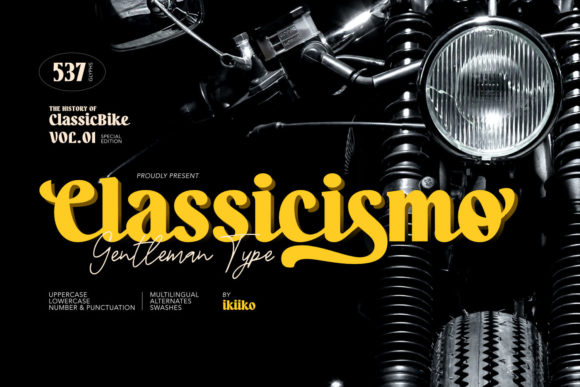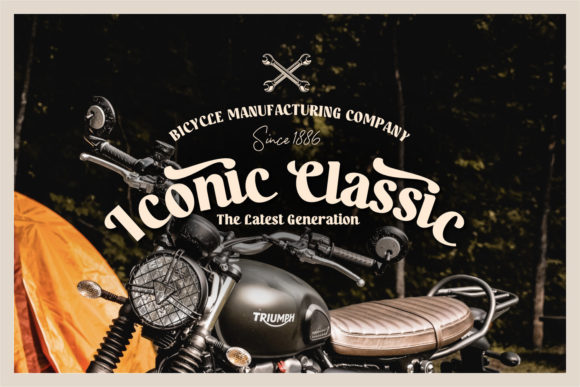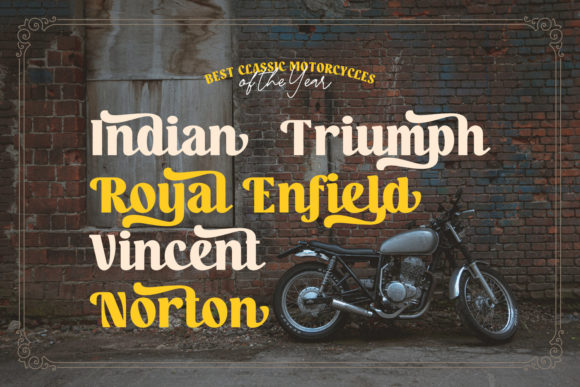
Classicismo: A Gentleman Type Slab Serif Font
Classicismo is a gentleman type slab serif font inspired by the typography of classic motorcycle brands. The letters are bold slab serif characters with classic swashes, offering a firm and sturdy yet flexible appearance. This font is perfect for vintage vehicle logos, motorcycle enthusiasts, manly products, magazine covers, posters, and flyer designs for automotive events. It is also ideal for vintage products or as a stylish text overlay on any background image. Additionally, Classicismo is PUA encoded, allowing easy access to all glyphs and swashes.
Key Features of Classicismo
- Bold Design: Offers a strong and confident look suitable for impactful headlines.
- Slab Serif Structure: Features thick, rectangular serifs typical of slab serif fonts.
- Vintage Inspiration: Draws inspiration from classic motorcycle brand typography.
- PUA Encoded: Allows easy access to all glyphs and swashes for enhanced design flexibility.
Ideal Uses for Classicismo
Classicismo’s unique characteristics make it particularly well-suited for:
- Logo design and branding
- Creative posters and advertisements
- Magazine covers and layouts
- Book covers and title pages
- Web layouts and digital content
- Typography projects needing a modern touch
- Vintage product packaging
When incorporating Classicismo into your designs, consider these tips:
- Use for headlines or short blocks of text to showcase its vintage style.
- Experiment with different sizes to highlight the font’s distinctive features.
- Consider pairing with simpler sans-serif fonts for body text to create contrast.
- Utilize its vintage inspiration across various creative projects to enhance visual appeal.
Classicismo is an excellent choice for designers looking to add a vintage-inspired slab serif font to their typographic toolkit. Its ability to bring strength and style to various design projects makes it stand out in the world of typography. Whether you’re working on automotive branding, creating layouts for magazines, or developing content that requires a touch of nostalgia, Classicismo offers the perfect blend of style and functionality.
Furthermore, Classicismo’s unique design allows it to shine in various contexts. From vintage-inspired designs with a modern twist to more contemporary layouts that need a touch of uniqueness, this font can elevate your projects. Its striking yet functional style works particularly well in designs that require a thoughtful and engaging mood.
In conclusion, Classicismo is a font that truly captures the essence of creativity and impact in typography. Its ability to work well in both minimalist projects and more elaborate layouts showcases its flexibility. For those looking to add a touch of unique charm to their work, Classicismo can even enhance themed creations with its distinctive style. It’s the perfect choice for designers seeking to make a strong, stylish impact across a wide range of creative projects.